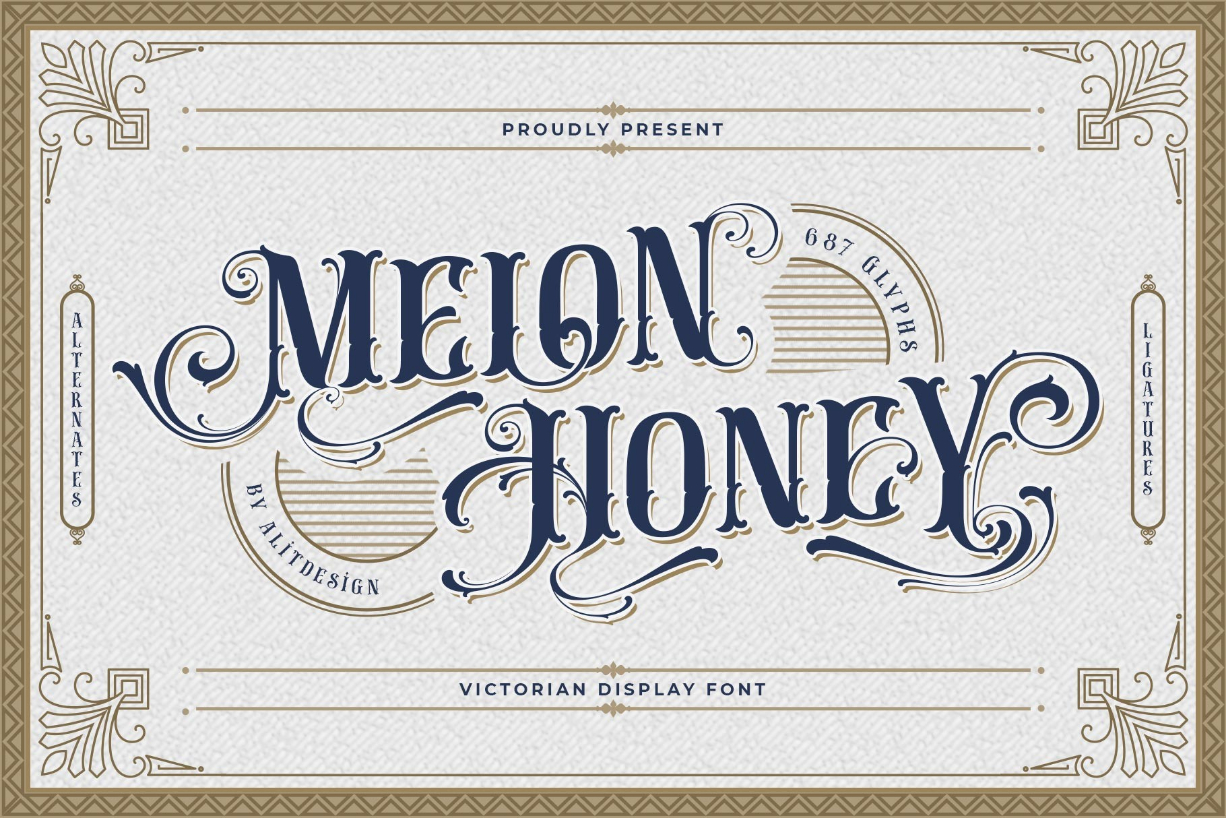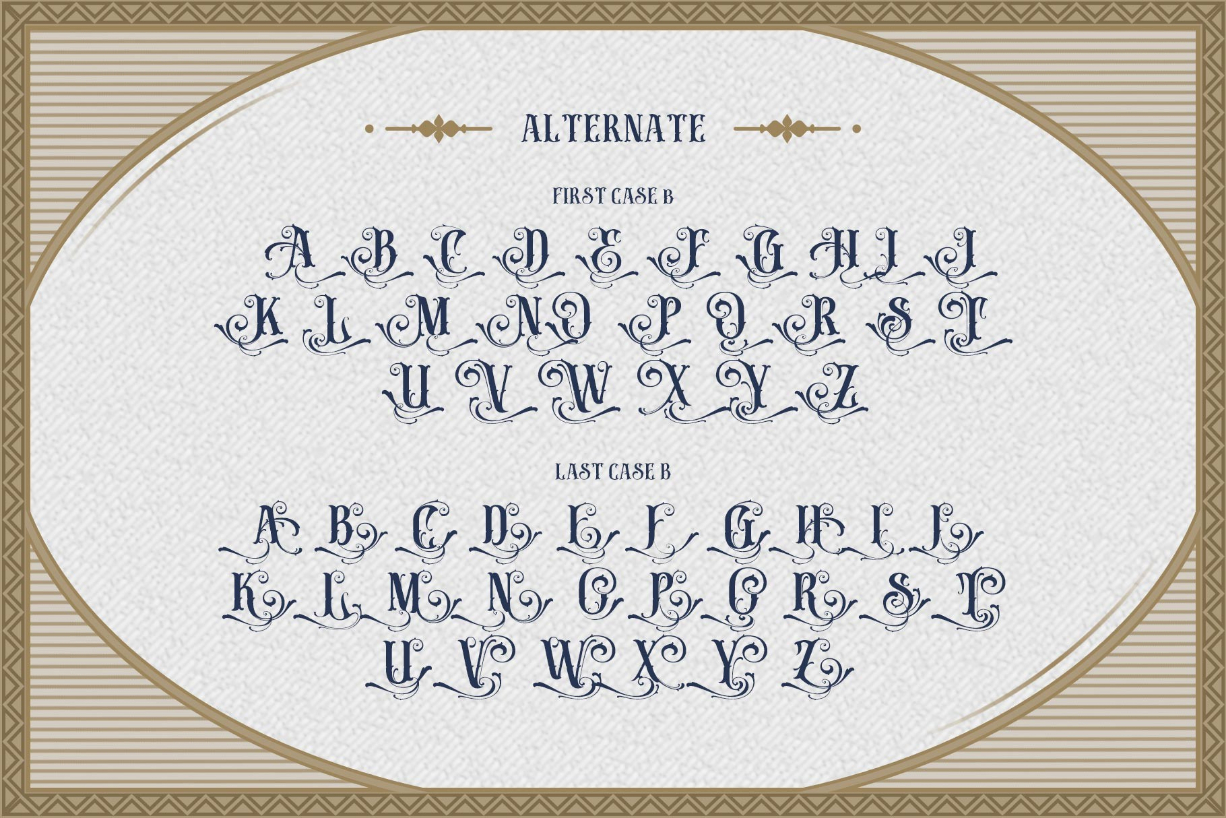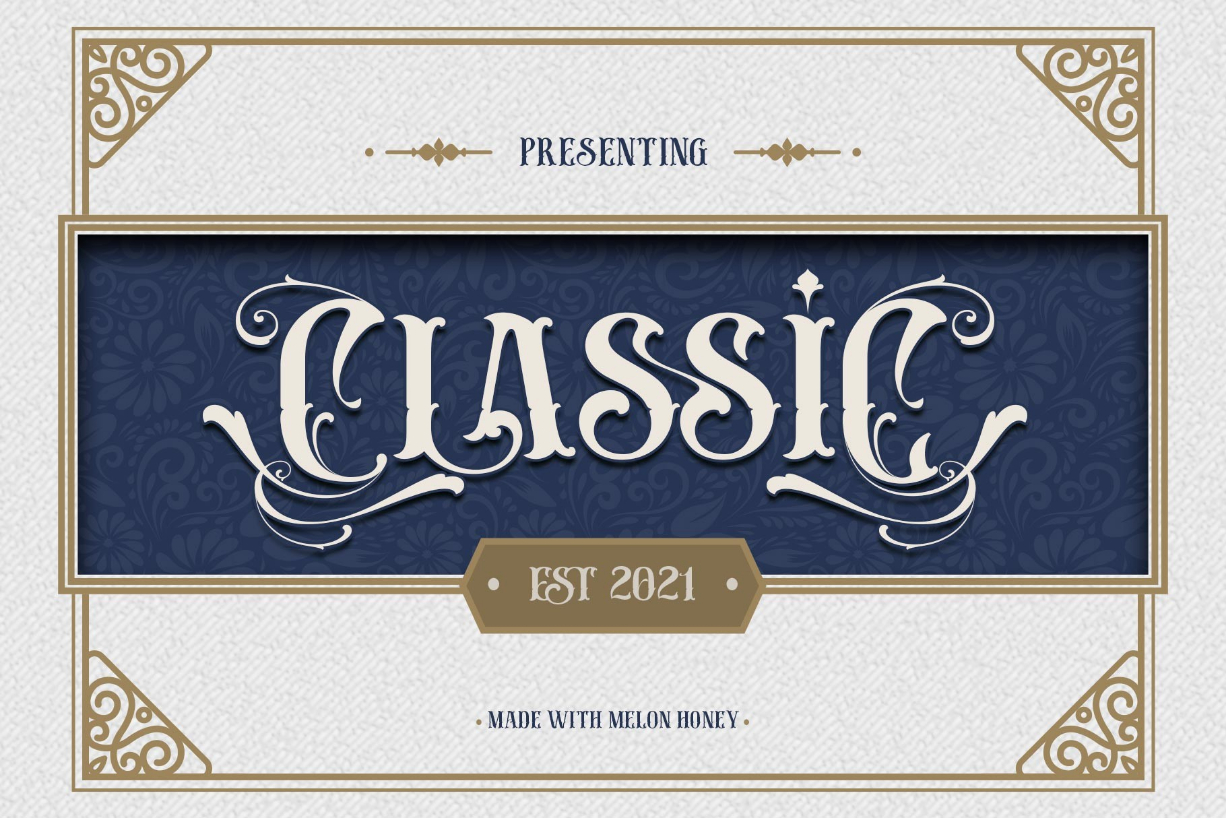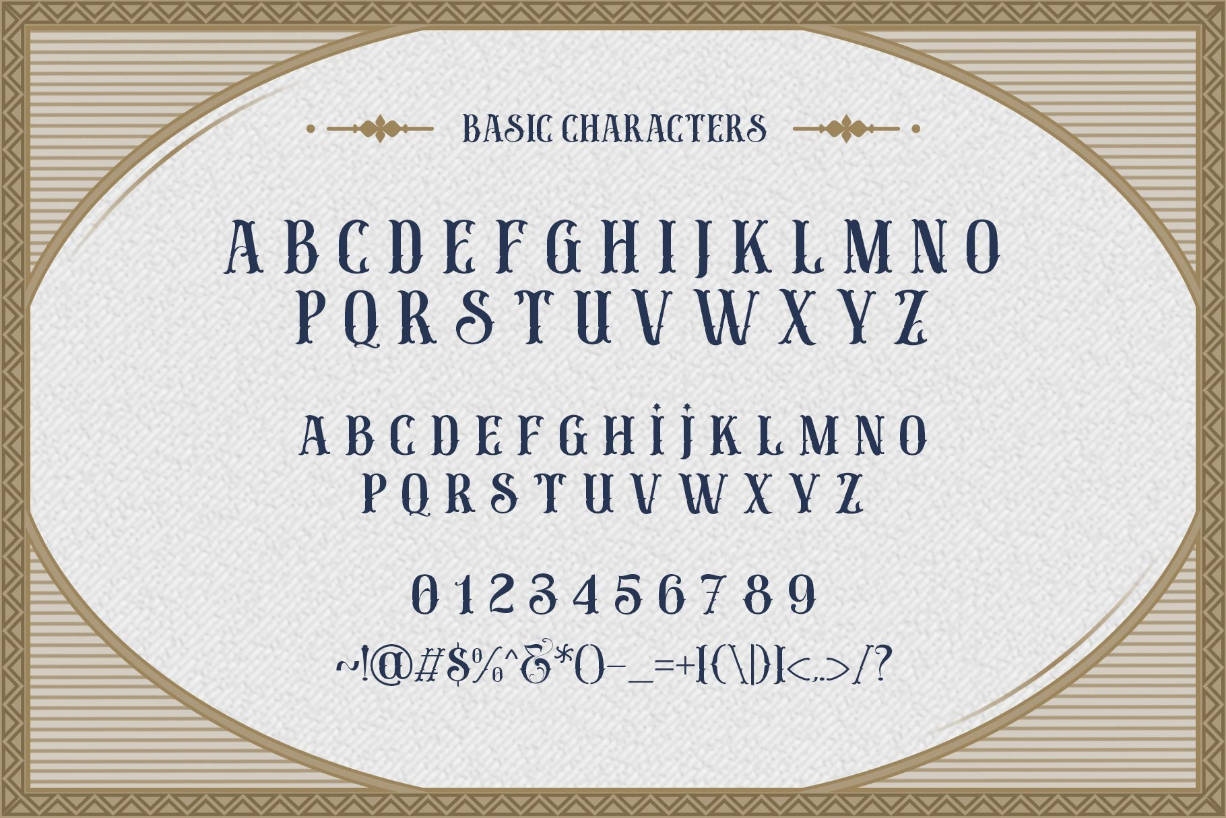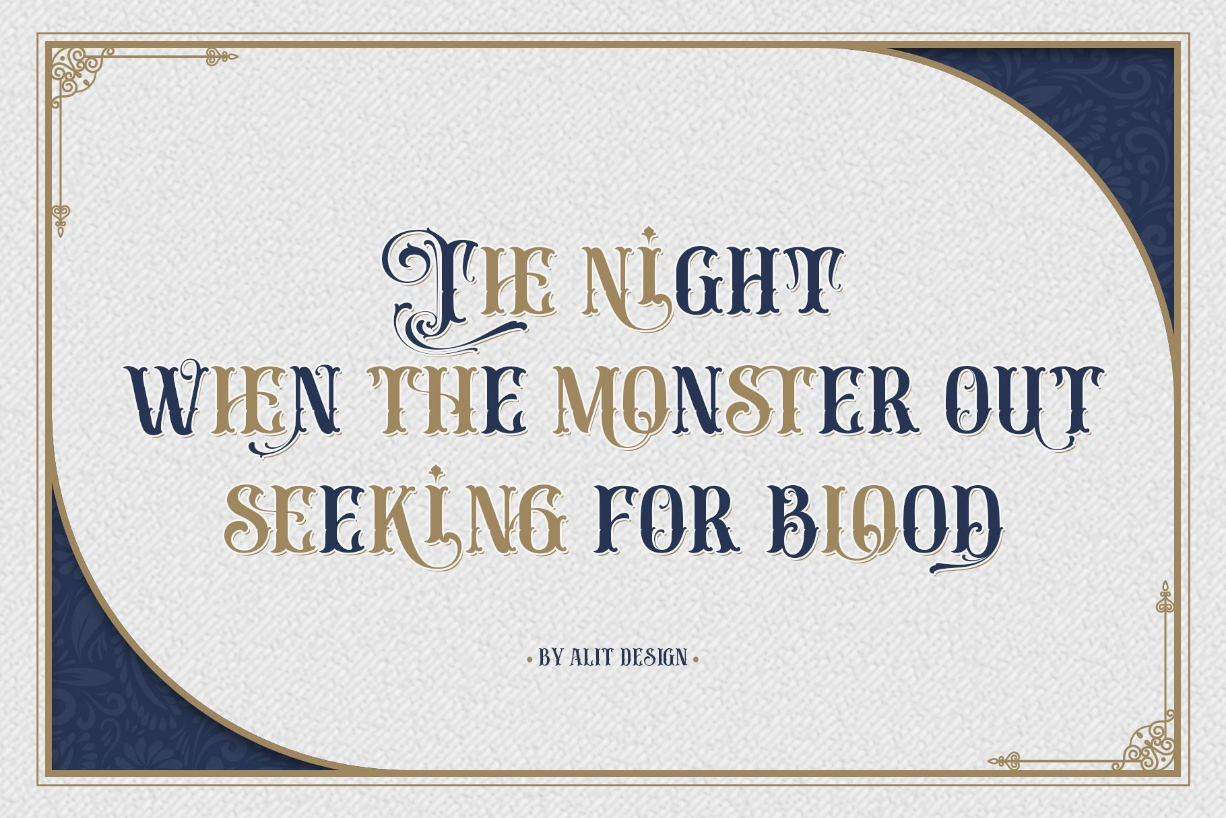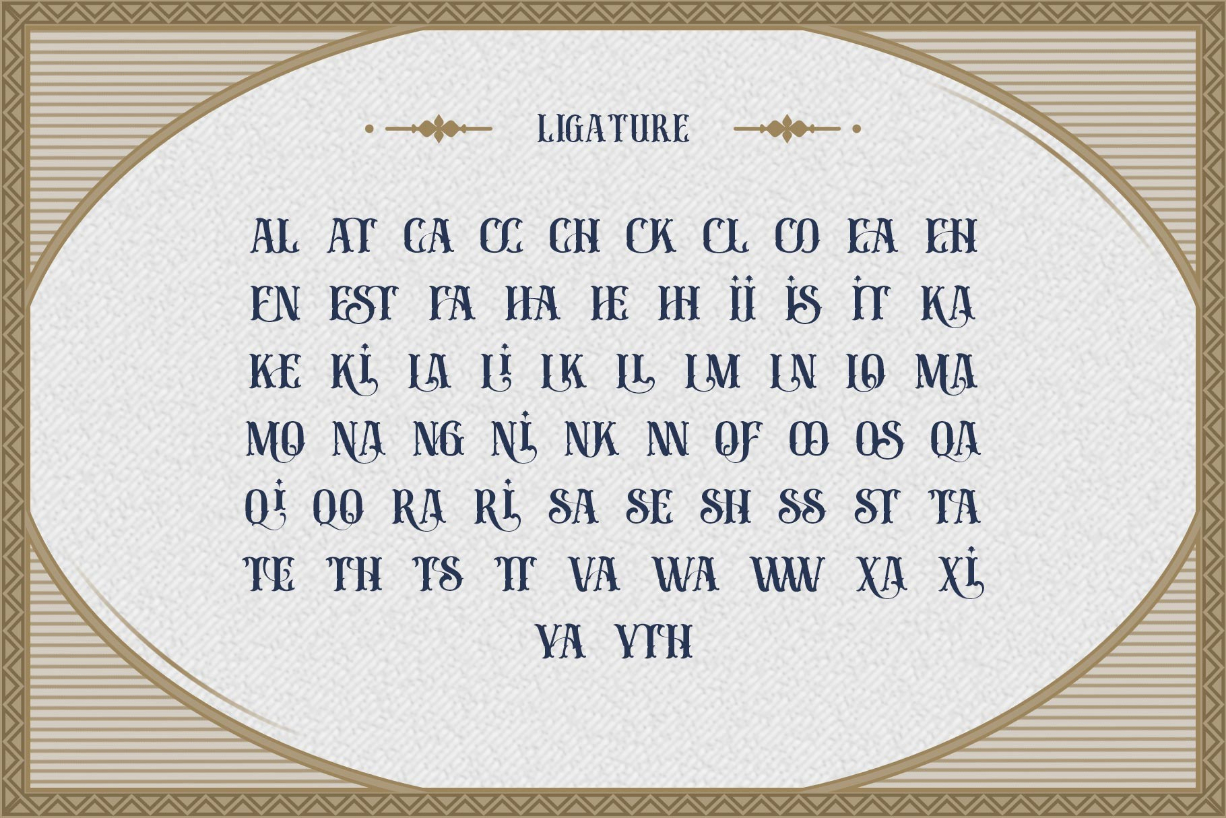
Melon Honey Font
About Melon Honey Font
Melon Honey is a distinct and highly detailed blackletter font. This font is PUA encoded which means you can access all of the glyphs and swashes with ease!